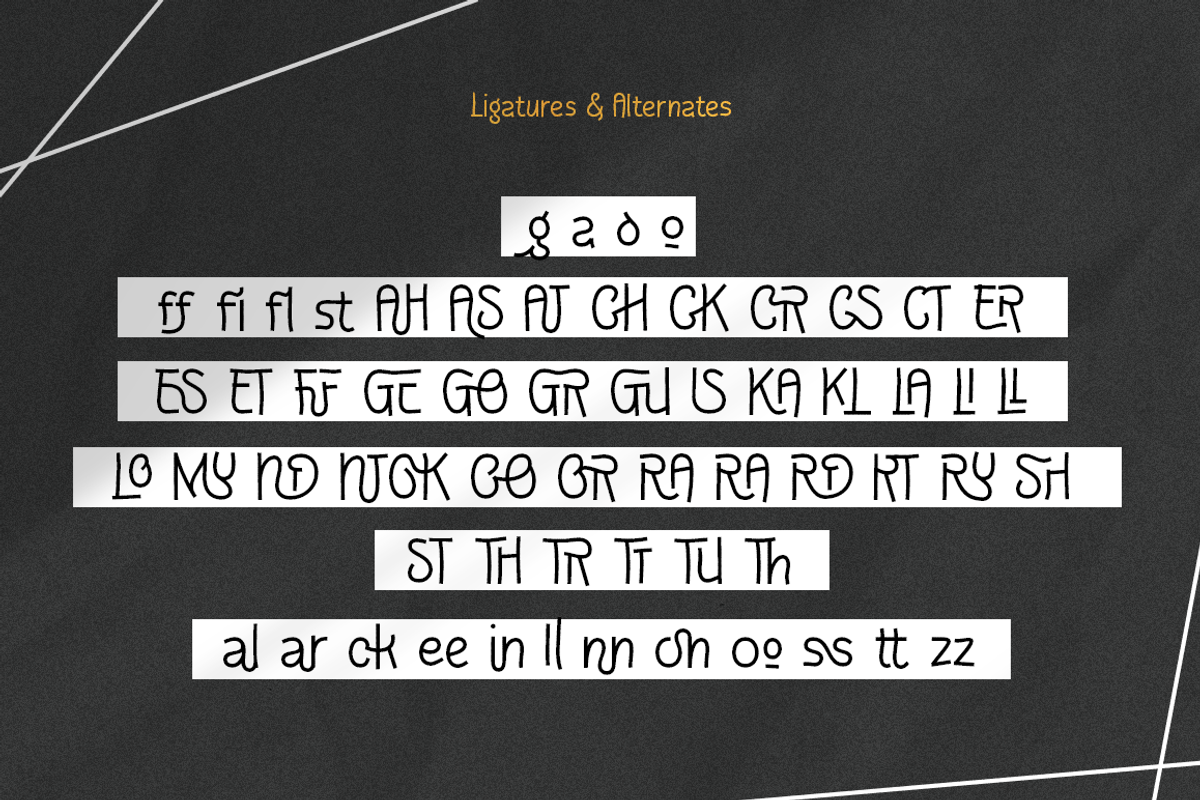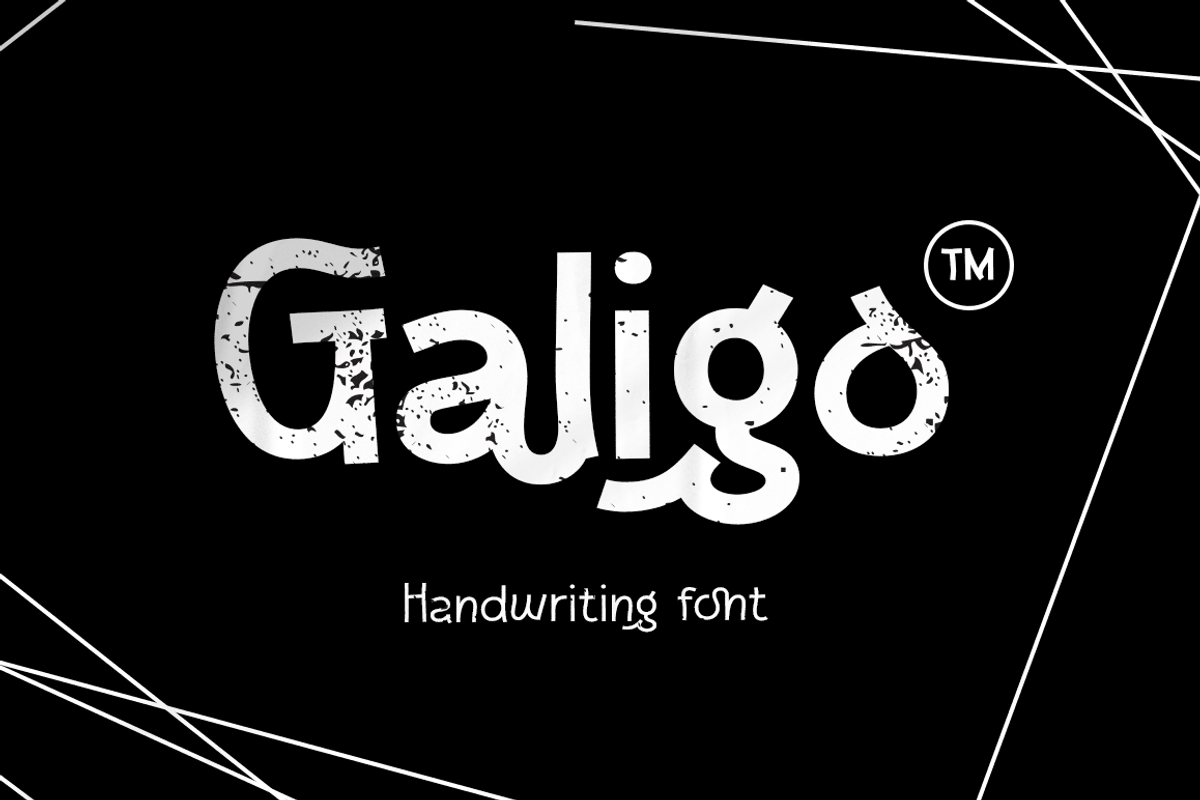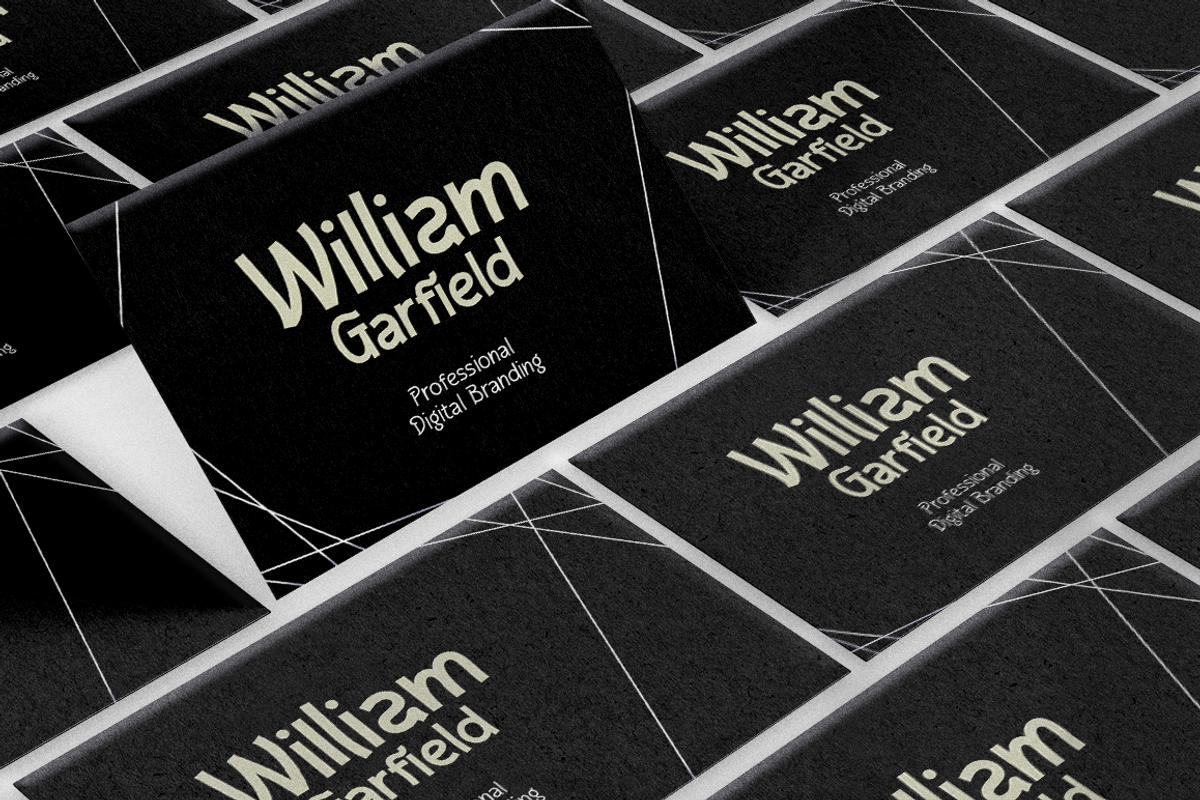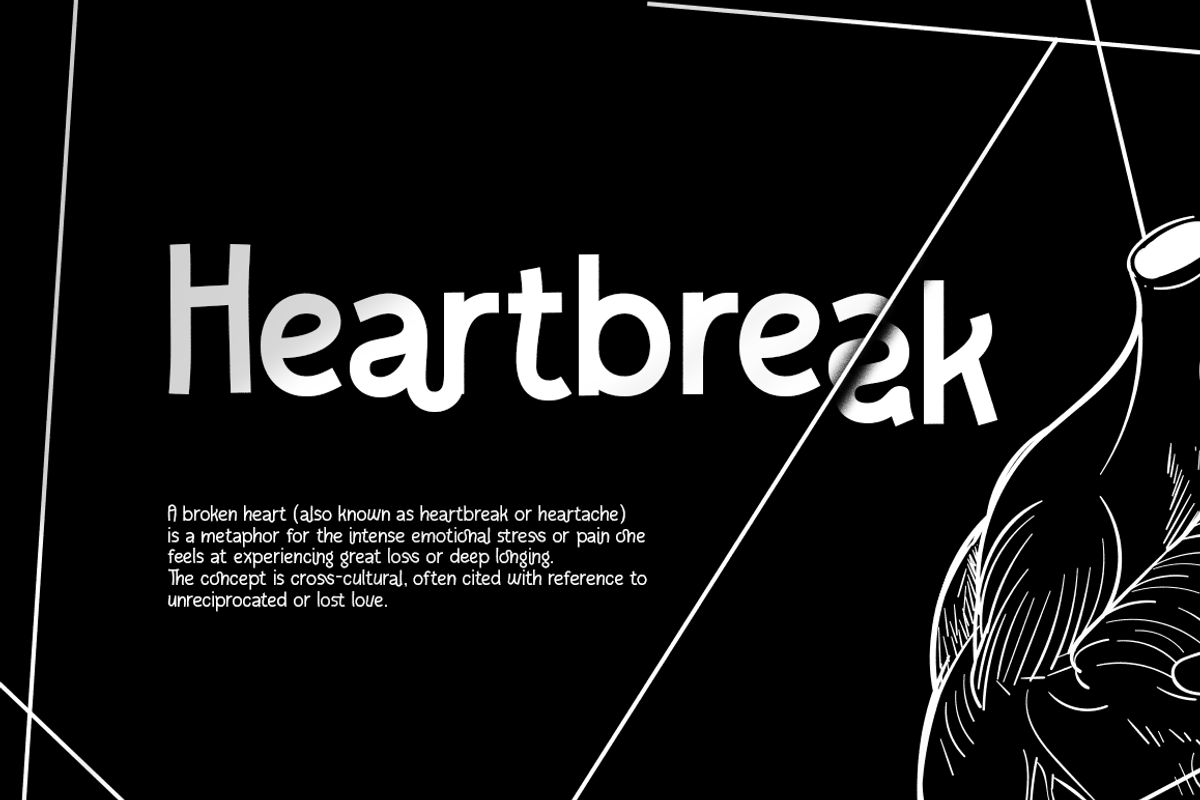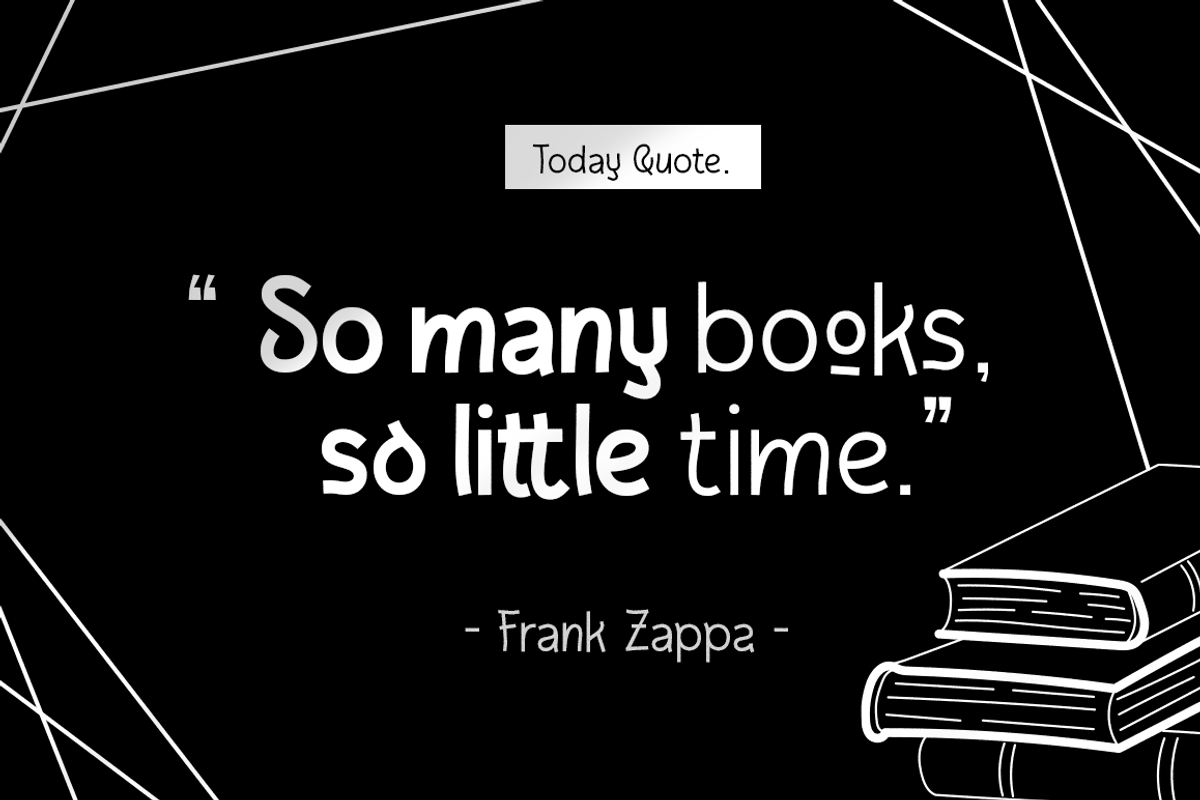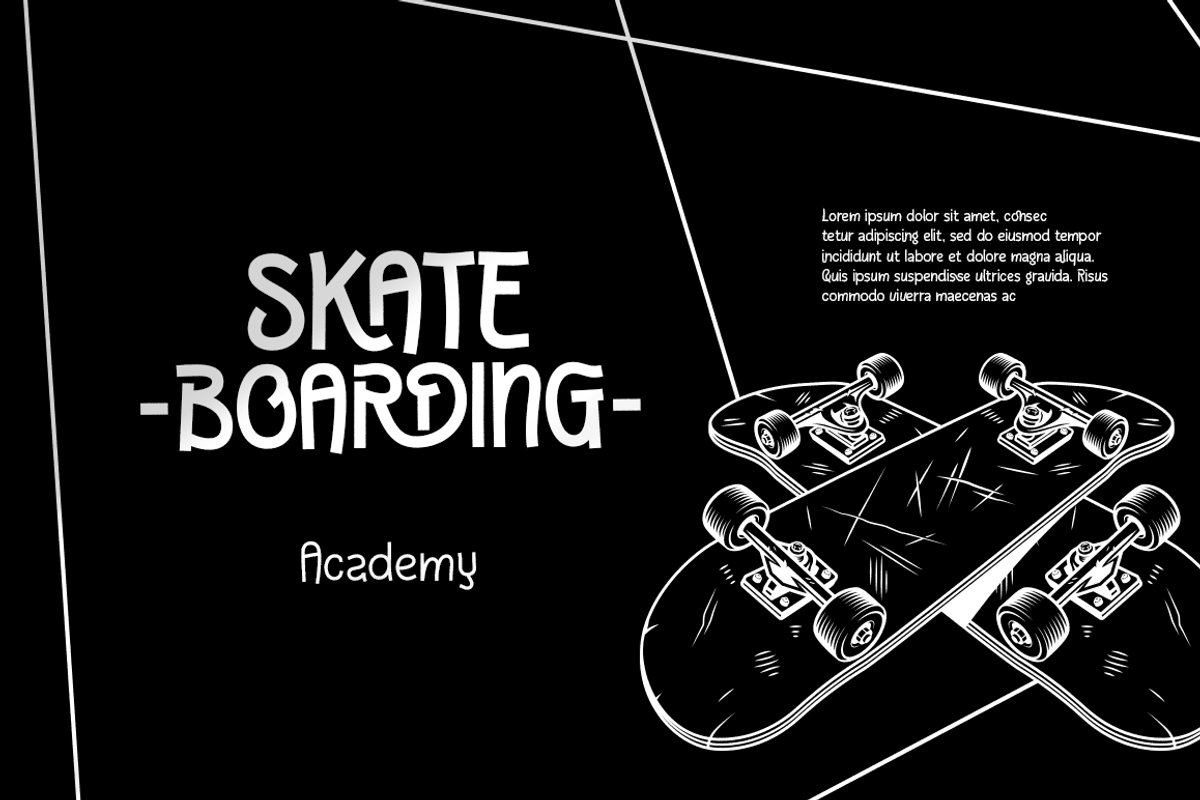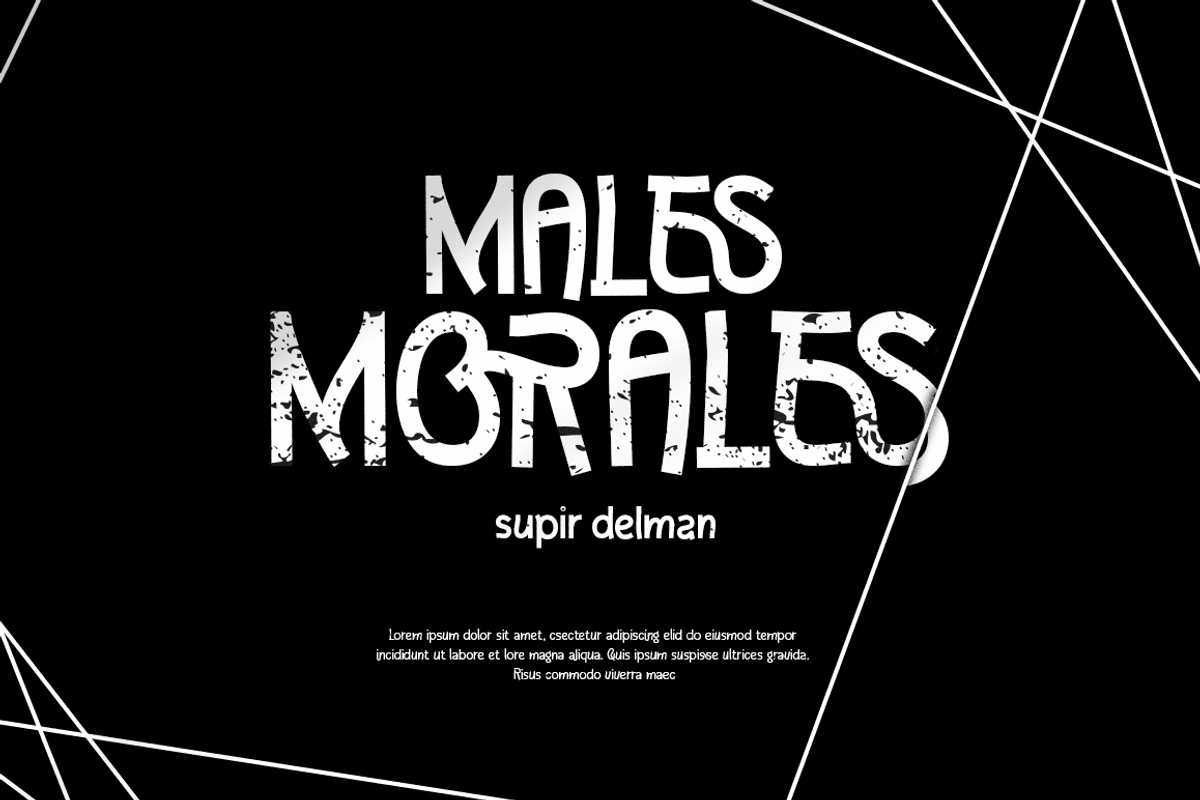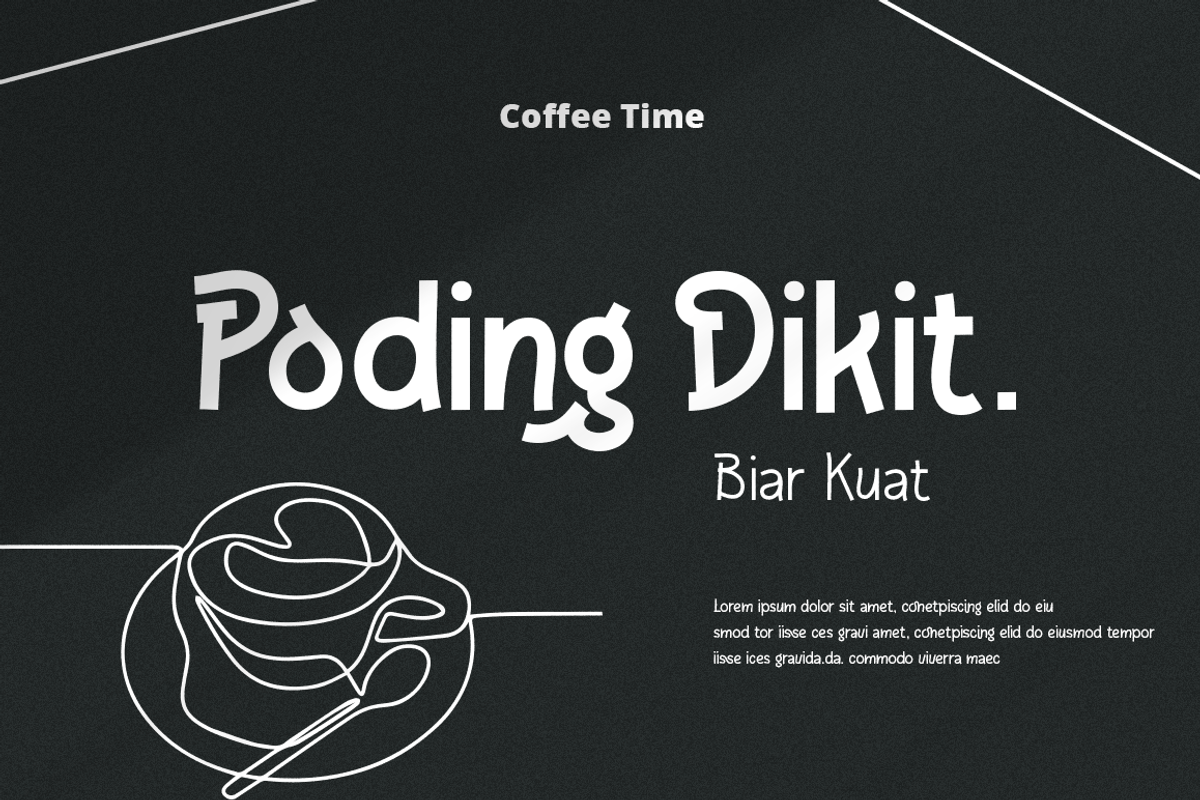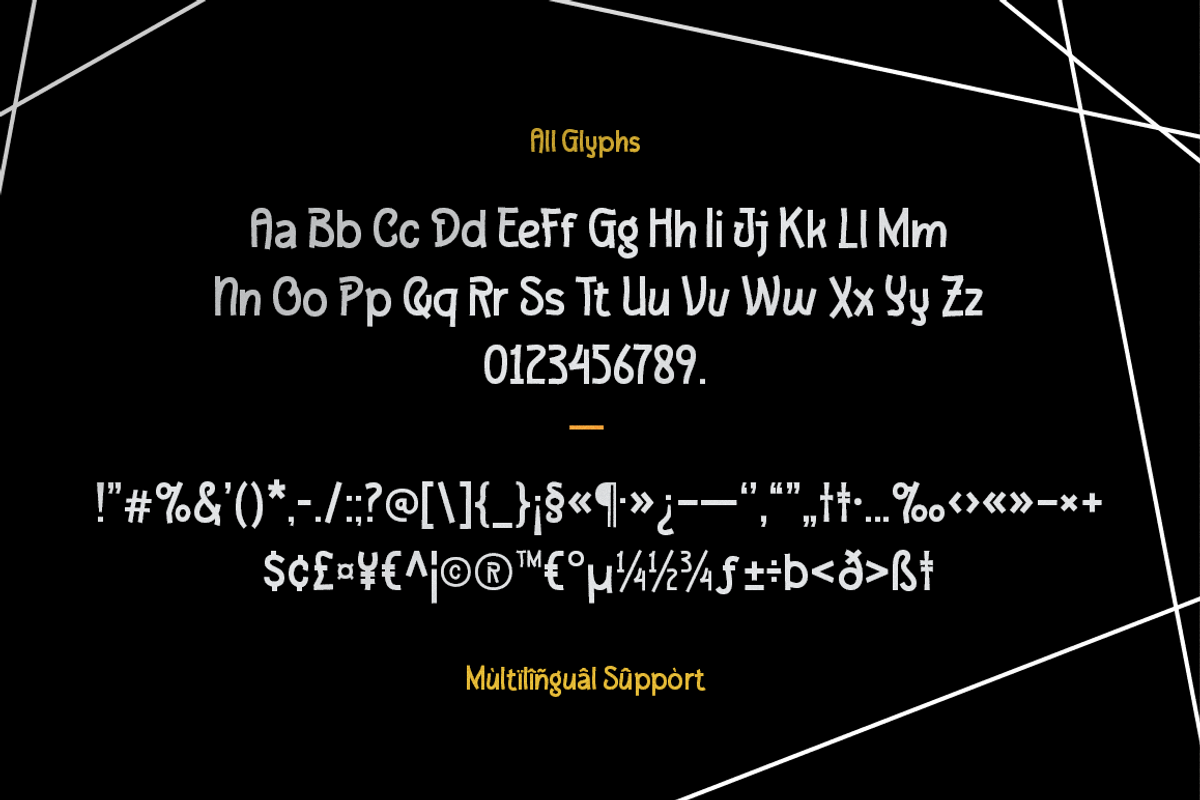
Galigo
Galigo is a captivating hand-drawn font that seamlessly blends artistic flair with versatile functionality. This unique typeface showcases a delightful variety with both light and regular forms, allowing you to effortlessly convey different moods and styles in your projects. Whether you're designing invitations, posters, branding materials, or any other creative endeavor, Galigo provides the versatility to express your ideas with finesse.
- Regular & Light
- Basic Latin Glyphs
- Uppercase and Lowercase Letters